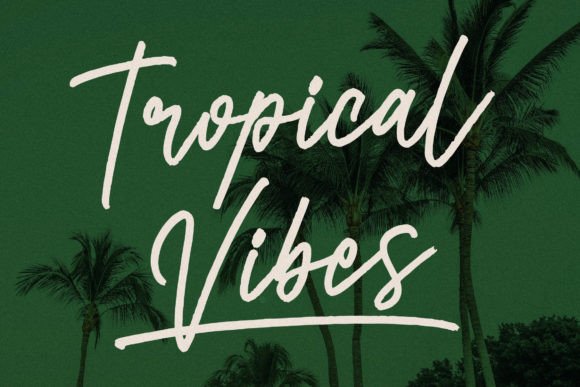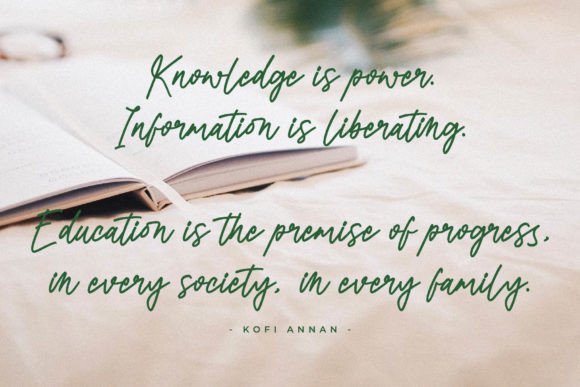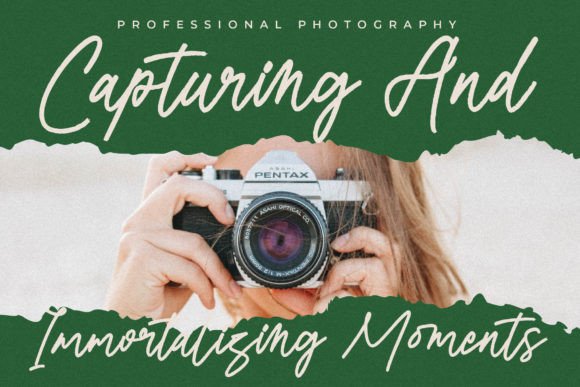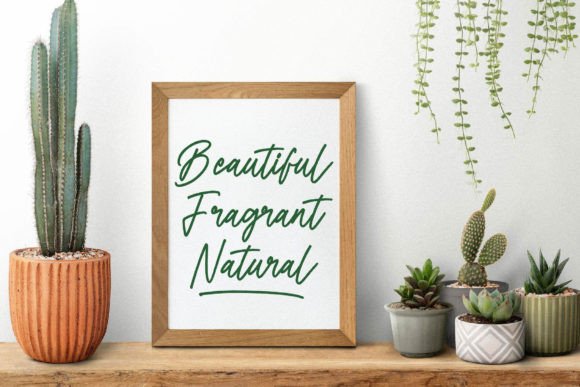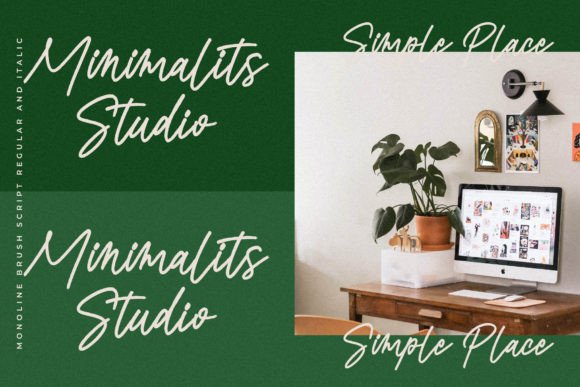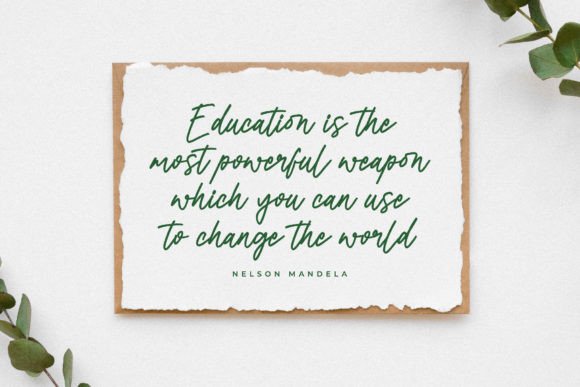
The Sweet Charm of Betsy Gilbertos Font
I’ll never forget the time I was working on a wedding invitation project, and my client asked for a font that was both elegant and casual. I scoured the internet, trying out font after font, but nothing seemed quite right. That was until I stumbled upon Betsy Gilbertos Font. This beautiful, cursive handwritten font has been a game-changer for my design projects, and I’m excited to share its charm with you.
A Personal Review of Betsy Gilbertos Font
So, what makes Betsy Gilbertos Font so special? Let’s dive into the good stuff! 😊
- ✨ Sweet and feminine: Betsy Gilbertos Font has a gentle, whimsical quality that adds a touch of romance to any design.
- ✅ Highly versatile: This font is perfect for a wide range of projects, from branding and logos to wedding invitations, greeting cards, and marketing materials.
- 💕 Elegant yet casual: Betsy Gilbertos Font strikes the perfect balance between sophistication and playfulness, making it ideal for designs that need to be both refined and approachable.
Of course, no font is perfect, and Betsy Gilbertos Font has a few minor quirks to consider:
- 🤔 Limited character set: While the font has a lovely range of characters, it may not be suitable for projects that require a wide range of special characters or glyphs.
- ⚠️ Not ideal for body text: Due to its cursive nature, Betsy Gilbertos Font is best used for headlines, titles, or short paragraphs, rather than lengthy blocks of text.
- Experiment with OpenType features like ligatures and stylistic alternates to add visual interest to your text.
The Story Behind Betsy Gilbertos Font
Betsy Gilbertos Font was designed with the intention of creating a beautiful, yet approachable font for creative projects. The designer aimed to craft a font that would add a touch of romance and whimsy to designs, while still being versatile and easy to use.
| Font Name | Betsy Gilbertos Font |
| Author | Glorytype Studio |
| What type of projects is Betsy Gilbertos Font best suited for? | Betsy Gilbertos Font is perfect for branding, logos, wedding invitations, greeting cards, marketing materials, and any project that requires a touch of elegance and whimsy. |
| Is Betsy Gilbertos Font available in different weights or styles? | Currently, Betsy Gilbertos Font is available in a single weight, but it’s possible to experiment with different font sizes and styles to achieve a unique look. |